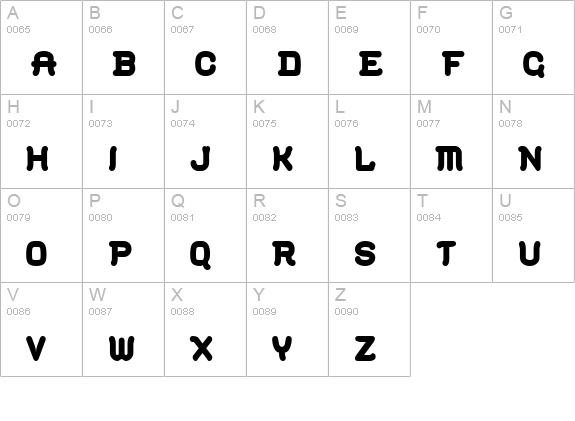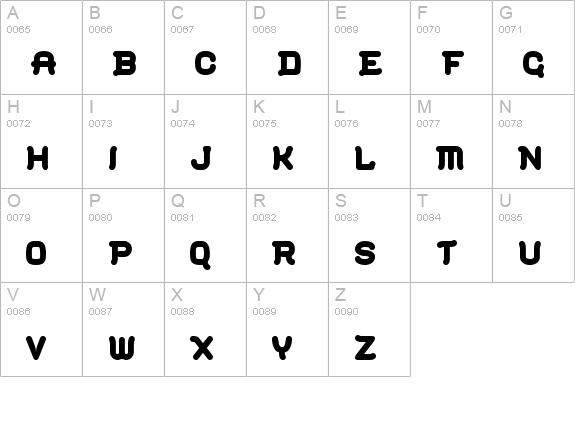
Gohan Font Details
Gohan font is a stunning display typeface that exudes elegance and sophistication. Its beautifully crafted letterforms are a perfect blend of modern simplicity and timeless charm. With its clean lines and graceful curves, Gohan font adds a touch of class to any design project. What sets Gohan font apart is not just its exquisite design, but also its availability as a free font. Yes, you read that right – Gohan font is freely available to download at FontsMarket.com. This means that designers and creatives from all walks of life can access and utilize this exceptional font without any cost. Whether you're working on a logo, website, poster, or any other creative endeavor, Gohan font will elevate your design to new heights. Its versatility allows it to be used for both headings and body text, making it a valuable asset for any typographic need. The attention to detail in Gohan font is truly remarkable. Each letter is meticulously crafted, resulting in a harmonious and balanced typeface. The lowercase characters are sleek and legible, while the uppercase letters command attention with their bold presence. Gohan font's wide range of weights and styles gives you the freedom to experiment and create unique combinations. From light and airy to bold and impactful, this font has it all. Whether you're going for a minimalist aesthetic or a more extravagant look, Gohan font will deliver. With its extensive language support, Gohan font ensures that your message can reach a global audience. No matter which corner of the world your design is destined for, this font will adapt effortlessly to any language or script. In conclusion, Gohan font is a remarkable typeface that effortlessly combines elegance with versatility. And the best part? It's absolutely free to download at FontsMarket.com. So, what are you waiting for? Unlock your creative potential with Gohan font and let your designs shine.